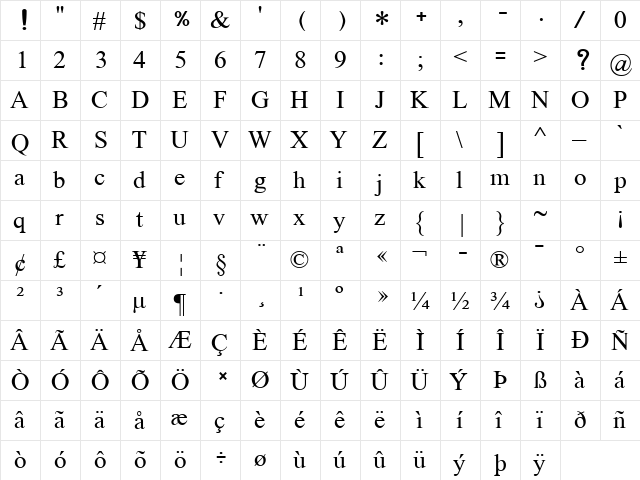
Khmer Busra Regular
Design Context for Khmer Busra Typeface
Khmer Busra is a composed and adaptable typeface that performs quietly and consistently across a wide range of design contexts.